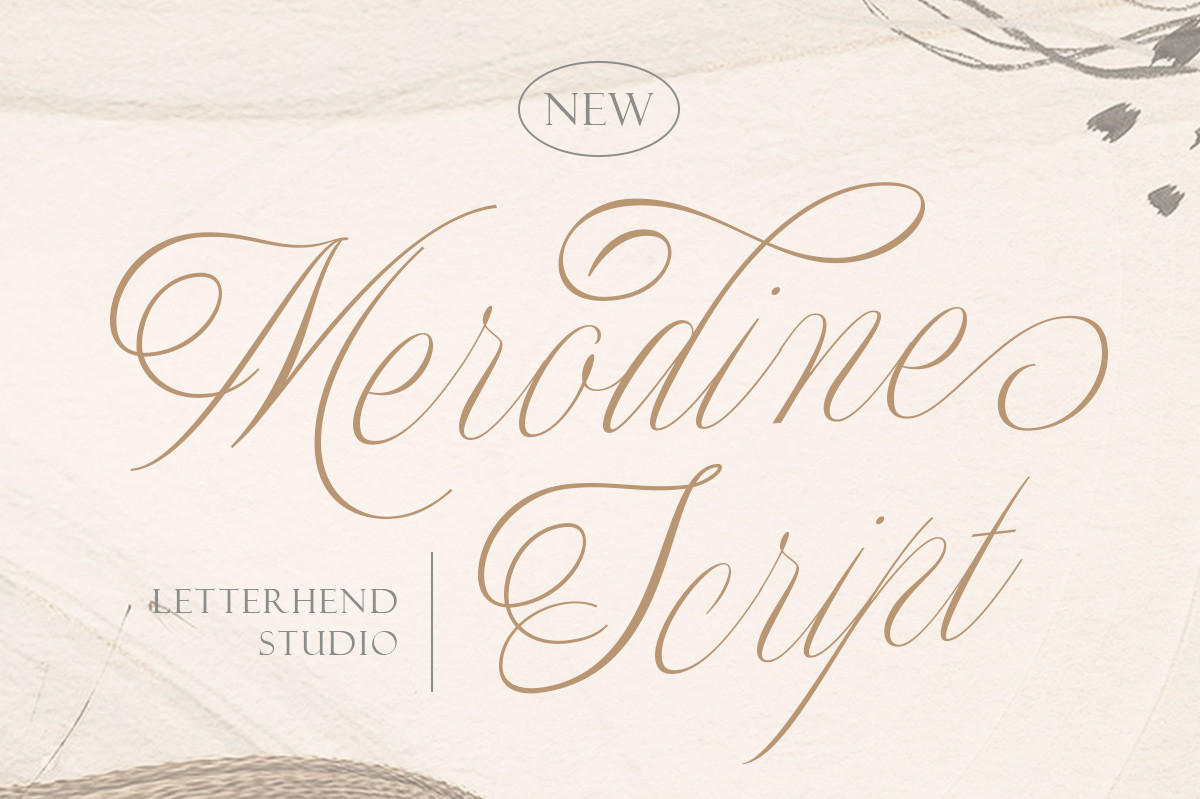
Merodine Font
This melodic and harmonious typeface is perfect for music school branding, concert hall signage, musical instrument packaging, recording studio logos, music therapy clinics, symphony orchestra programs, music streaming apps, audio equipment branding, and entertainment venue materials that require a rhythmic, musical aesthetic.
Merodine Font brings excitement to design projects with its flowing, melody-inspired letterforms and harmonious character spacing that captures the essence of musical composition. The font features graceful curves and rhythmic proportions that mirror the natural flow of musical notation while maintaining exceptional readability. Its melodic sophistication and artistic rhythm make it an ideal choice for brands that want to communicate creativity, harmony, and musical excellence in their visual storytelling.
The Merodine Font family includes various musical styles: Light, Regular, Medium, Bold, Italic, Condensed, and Orchestral versions. Each variant maintains the font's distinctive melodic character while providing designers with complete flexibility for creating harmonious musical branding systems. The family also features music-inspired ornaments, note-like decorative elements, rhythm-based ligatures, and musical symbols that enhance the overall symphonic aesthetic.
The font's musical excellence includes carefully balanced rhythm patterns, smooth flowing connections between characters, and subtle variations that create visual musicality without compromising legibility. Whether you're designing for music education institutions, entertainment venues, or audio technology companies, this font delivers the artistic sophistication that resonates with musicians and music lovers seeking authentic creative expression.